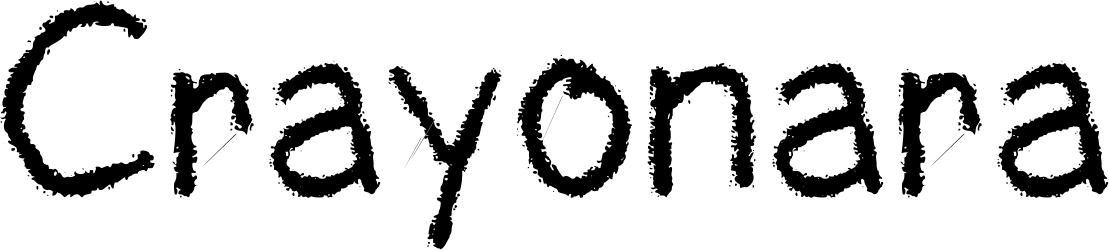
Crayonara Font
For when you want to share a happy and friendly vibe, Crayonara might be a great choice. This chalk font is suitable for kids’ programs, books, educational flyers, and so on. Don’t hesitate and try it out as soon as possible. For more similar products, head over to our vast library.